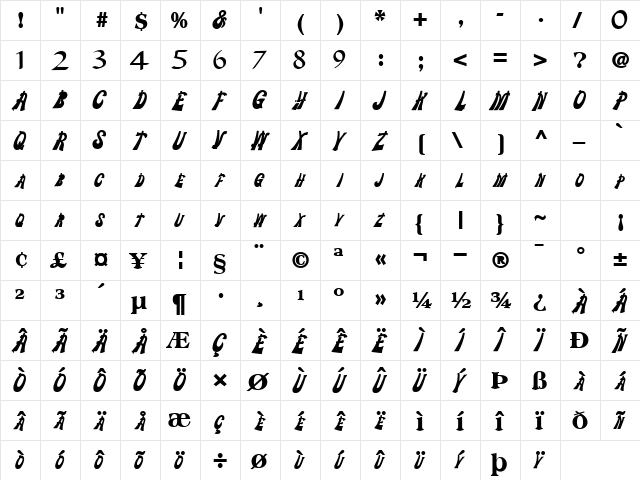
RibbonArt68 Bold
Design Context for RibbonArt68 Typeface
RibbonArt68 is a composed and adaptable typeface that performs quietly and consistently across a wide range of design contexts. The heavy weight commands attention and anchors typographic hierarchies.